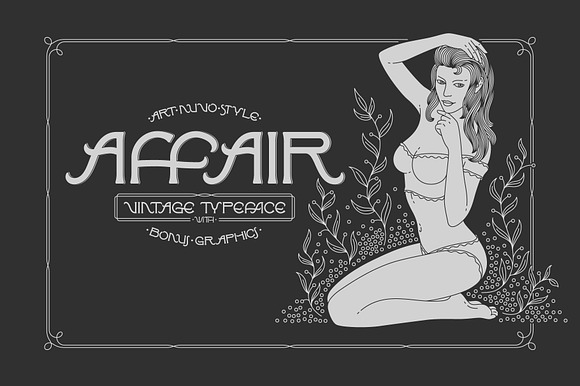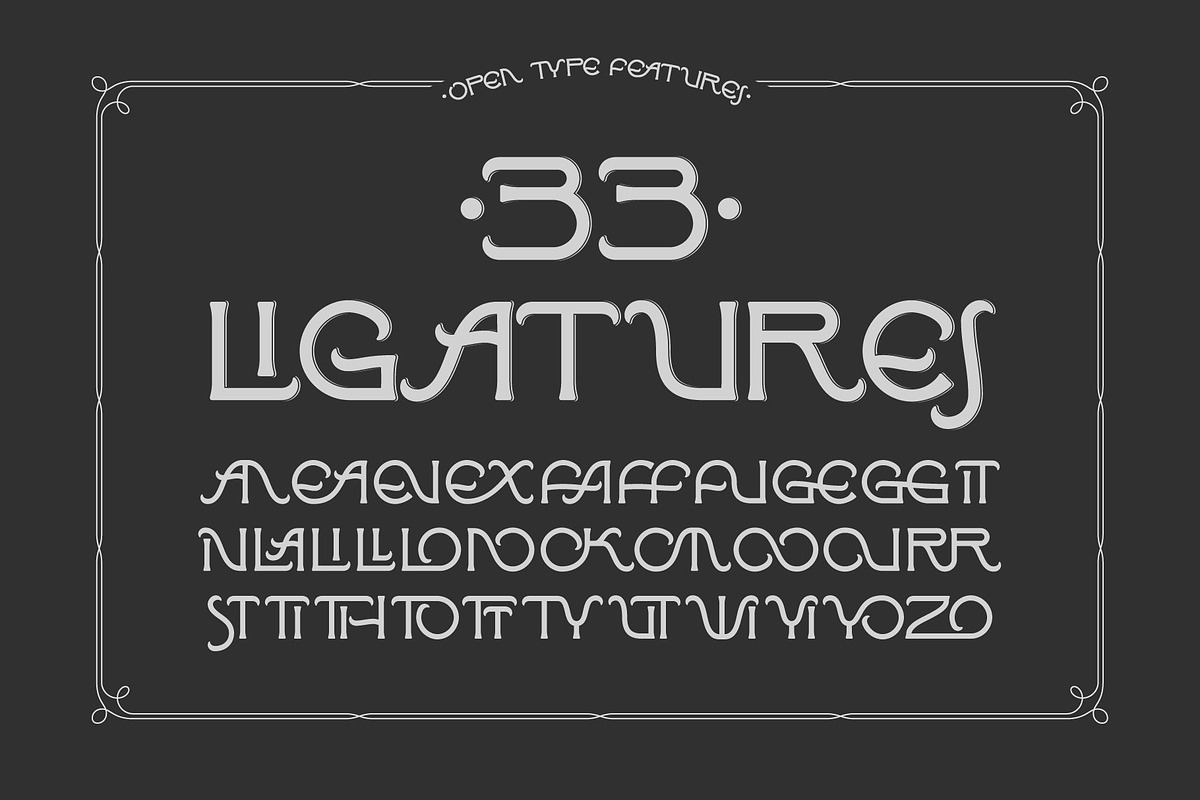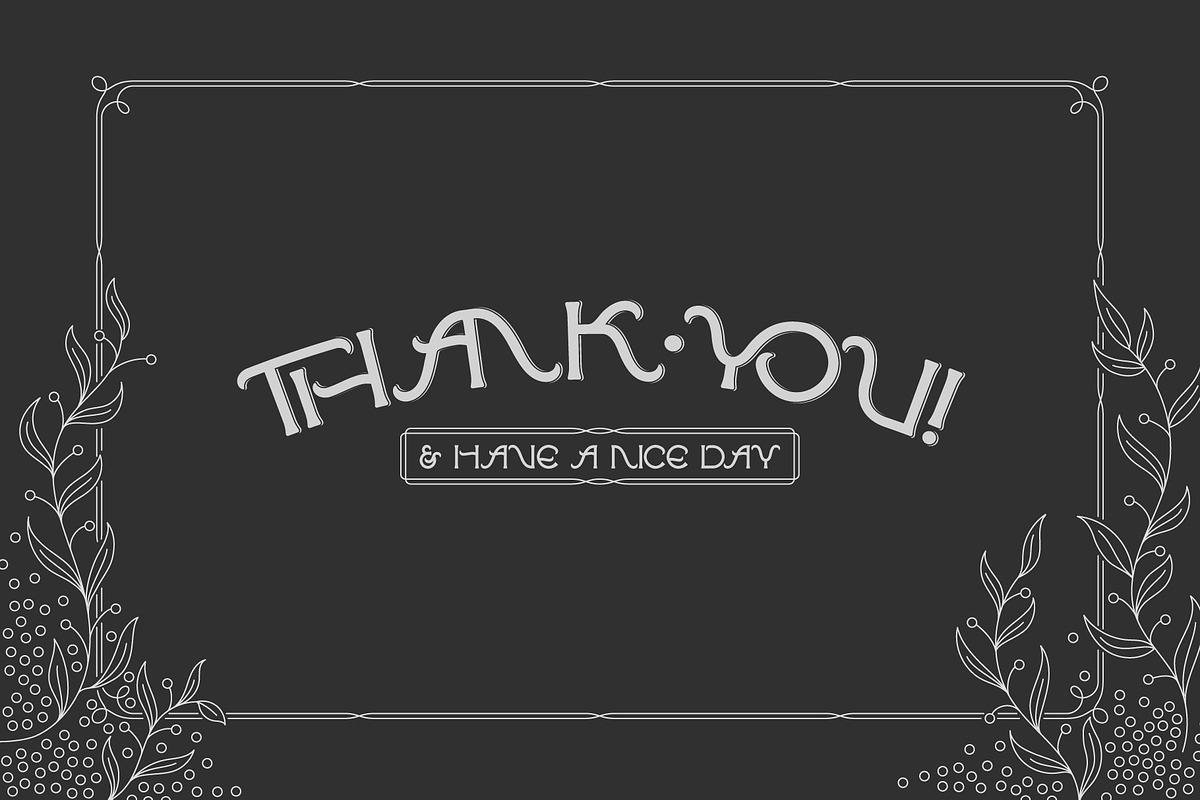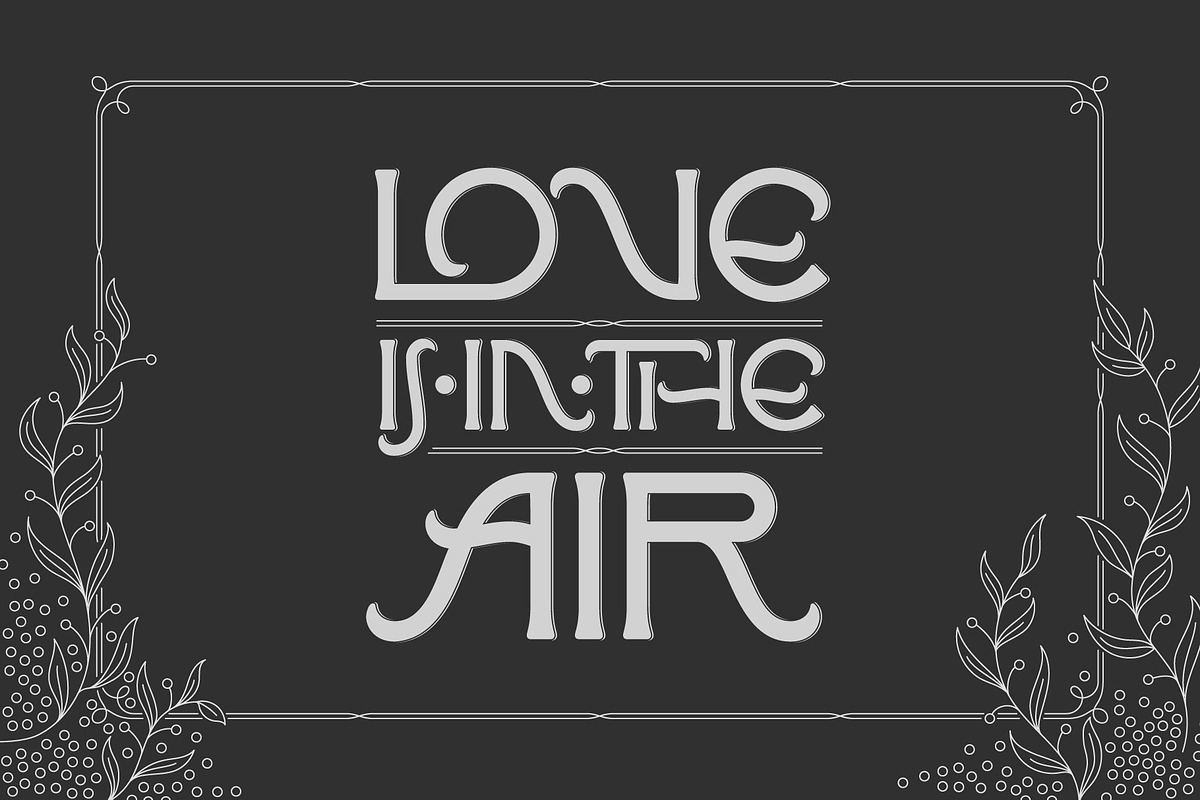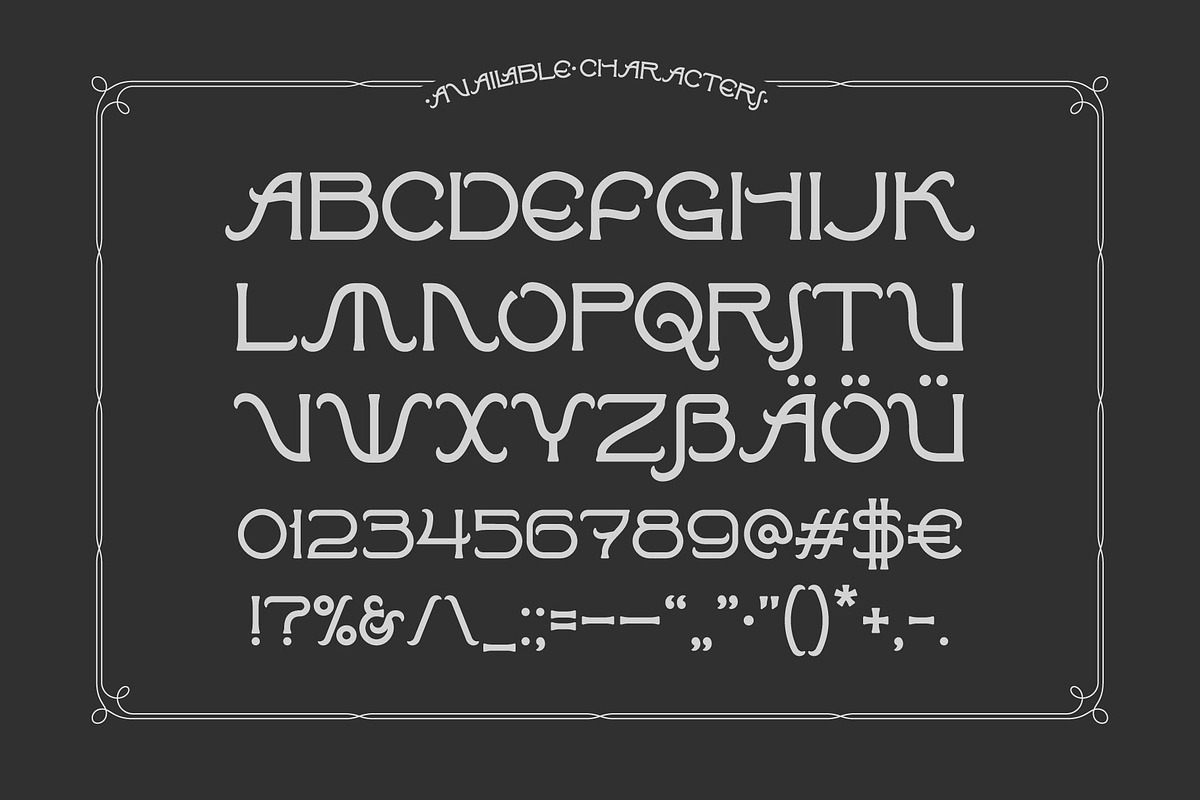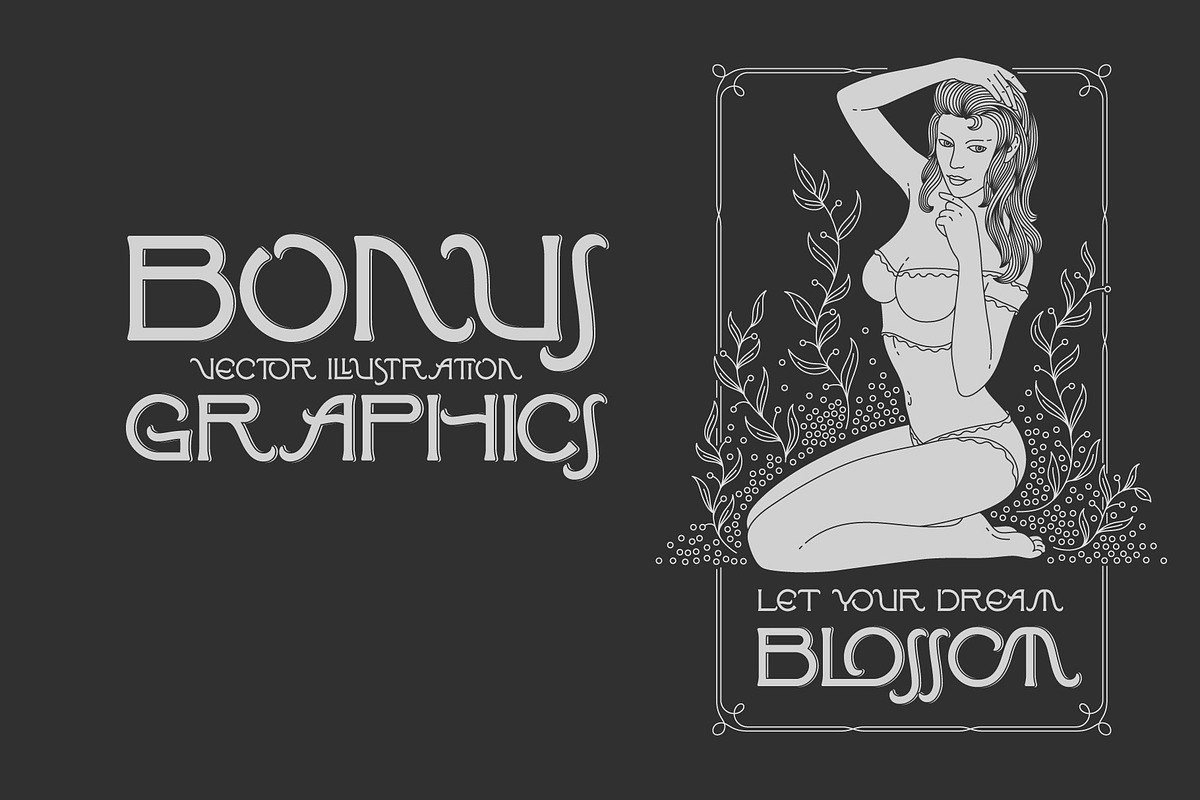
Affair Typeface & Graphics
Hi! Introducing an art nuvo style vintage font named "Affair". It's an old-school typeface, perfect for creating some classic lettering compositions. Affair font includes lots of ligatures to create more organic text shape (3rd screenshot). As a bonus you will get a vector graphic illustration of a beautiful woman sitting in a foliage (4th screenshot).